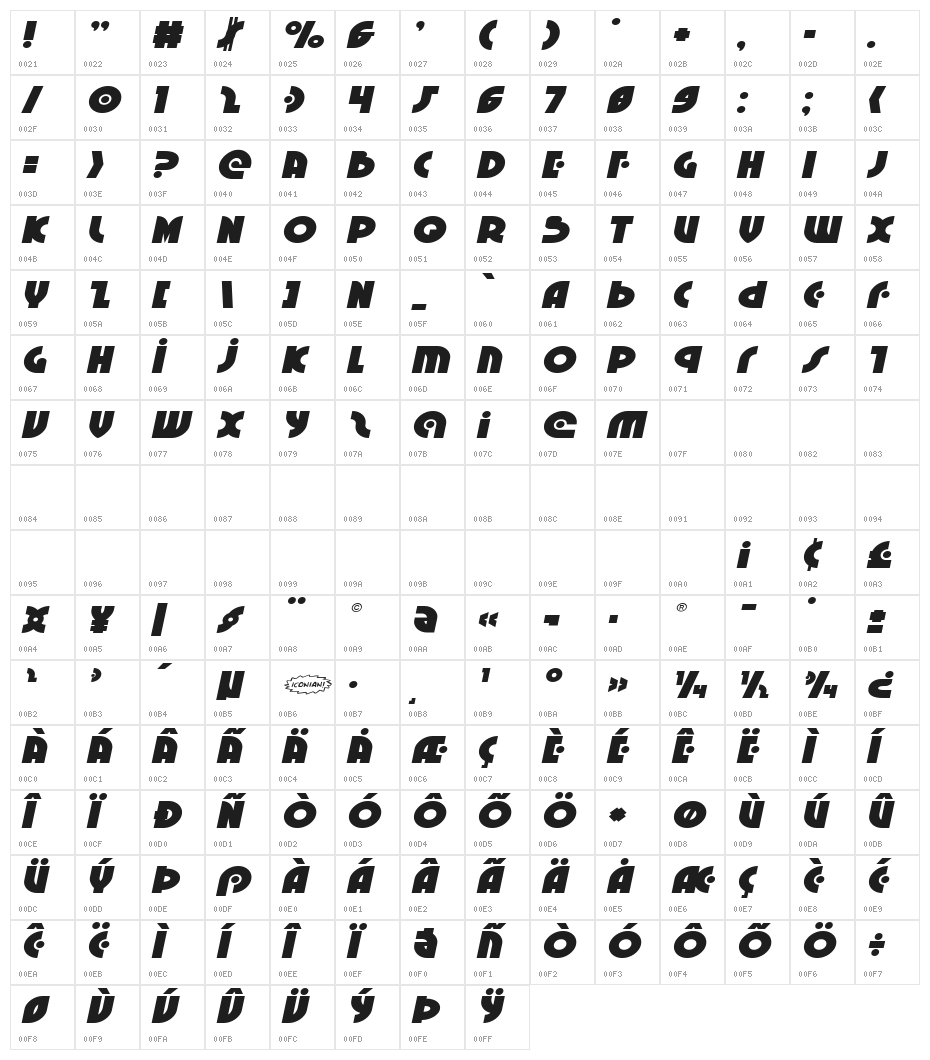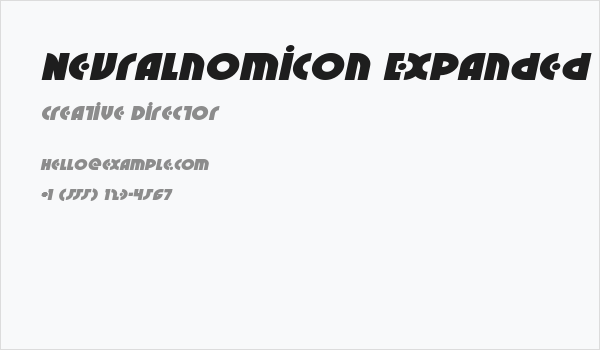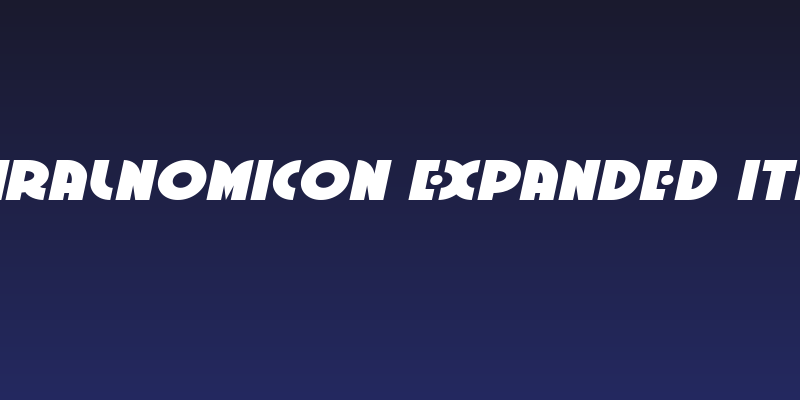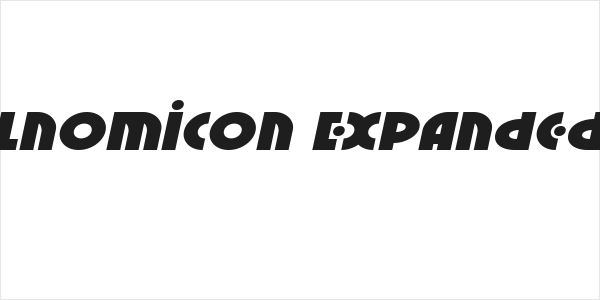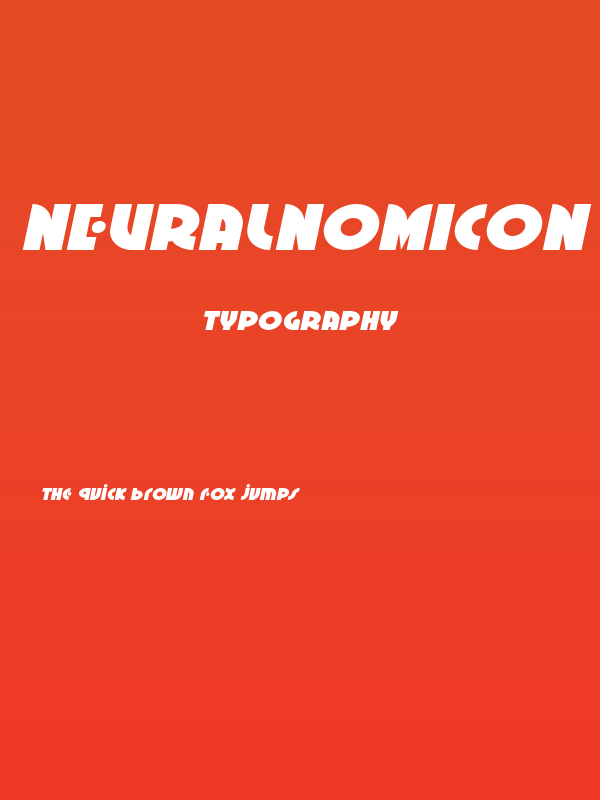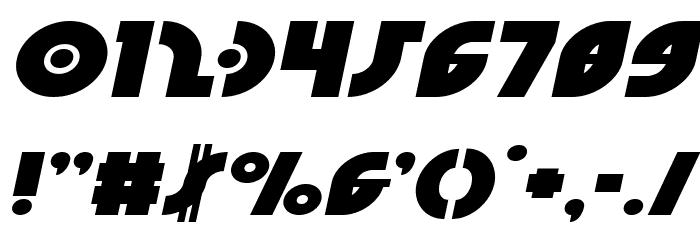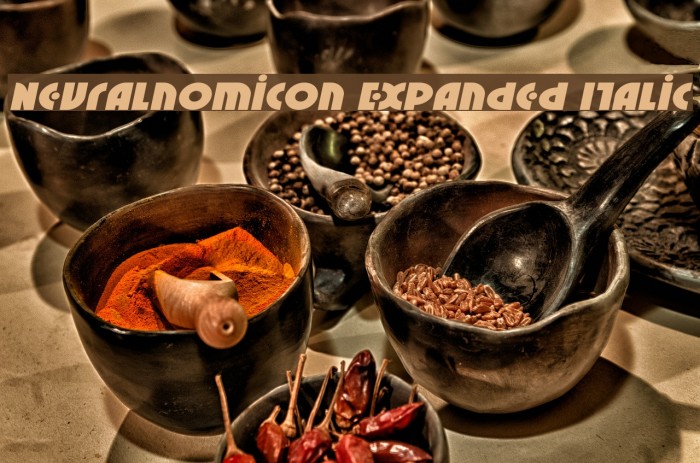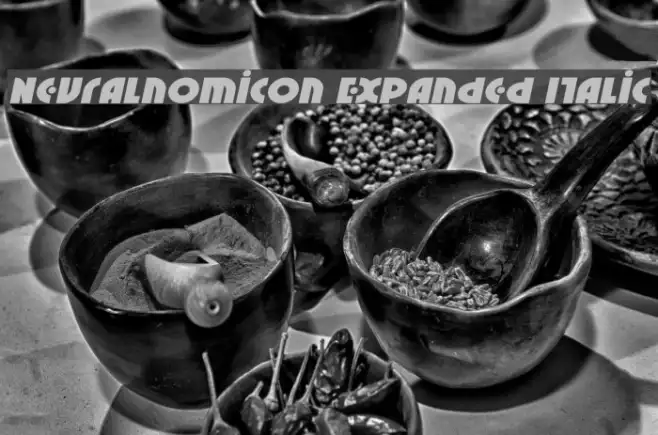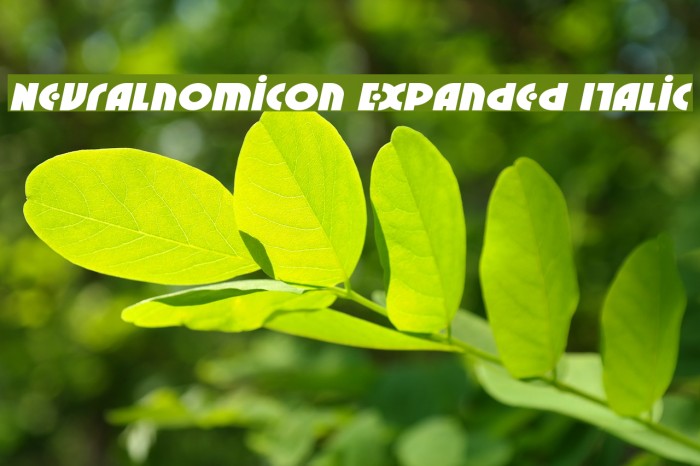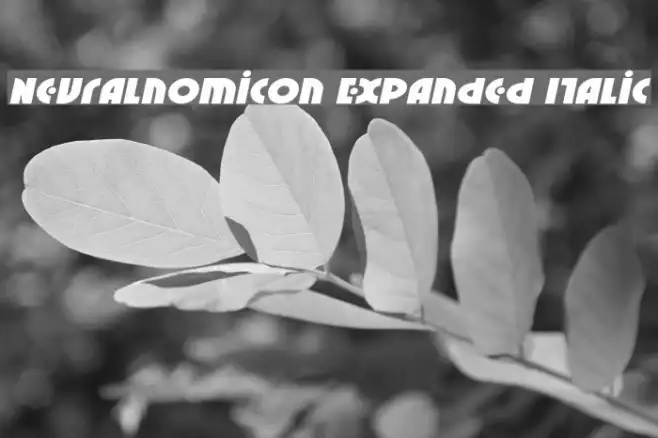
Neuralnomicon Expanded Italic Font
Neuralnomicon Expanded Italic Description
This font features a bold and dynamic style with a futuristic flair. The characters are designed with sharp angles and unique geometric shapes, giving it a distinct and eye-catching appearance. The expanded width adds to its boldness, making it stand out in any design. The italic slant enhances its modern and forward-thinking aesthetic. Each letter is crafted with precision, ensuring clarity and readability despite its decorative nature. The numbers and special characters maintain the same stylistic approach, ensuring consistency throughout the font.
| Proposed Projects | Ideal for sci-fi themed projects, modern branding, tech-related designs, and eye-catching headlines. |